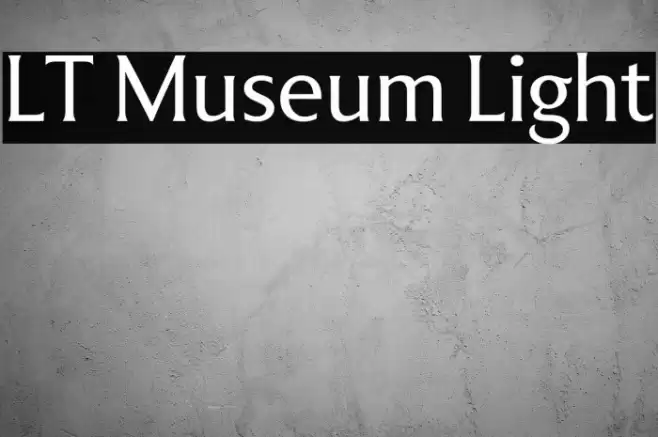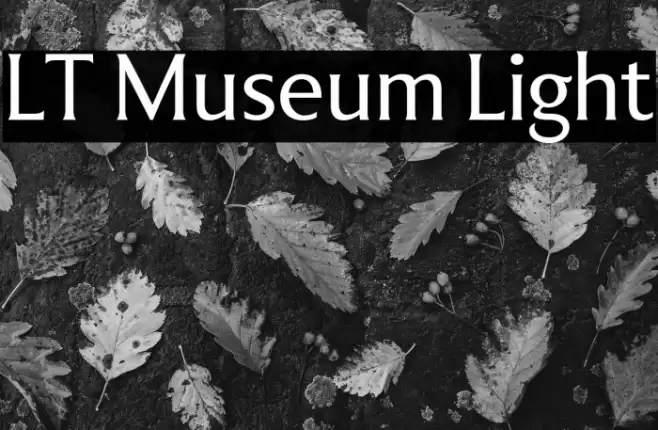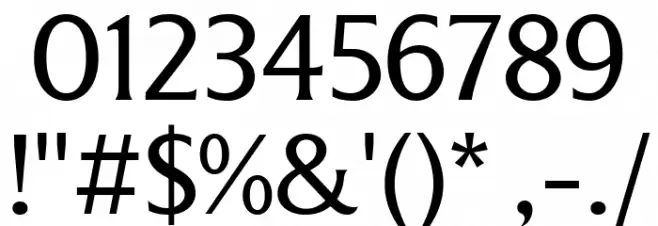
LT Museum Light Font
LT Museum Light Description
This font features a clean and elegant serif style, characterized by its refined and sophisticated appearance. The letters exhibit a balanced proportion with slightly elongated serifs, providing a classic yet modern look. The uppercase letters are bold and commanding, while the lowercase letters maintain a harmonious flow. The numerals are clear and distinct, ensuring readability. The special characters are well-integrated, maintaining the overall aesthetic of the font. This font is versatile, suitable for both digital and print media, offering a timeless appeal.
A refined serif font with a classic yet modern aesthetic from Uncategorized fonts.
- Proposed Projects: Ideal for editorial design, book covers, branding, and formal invitations.
- Overall Style: Classic